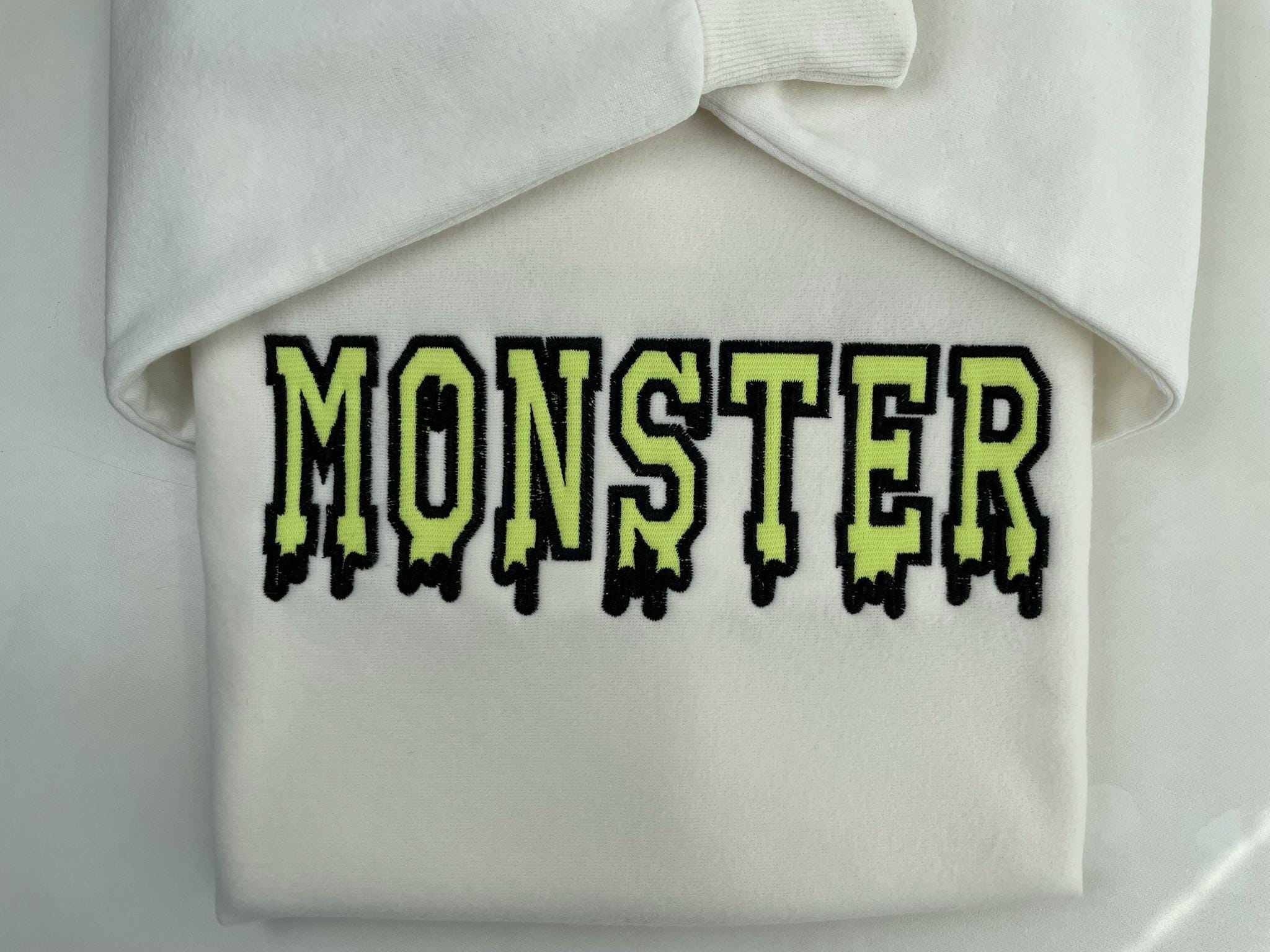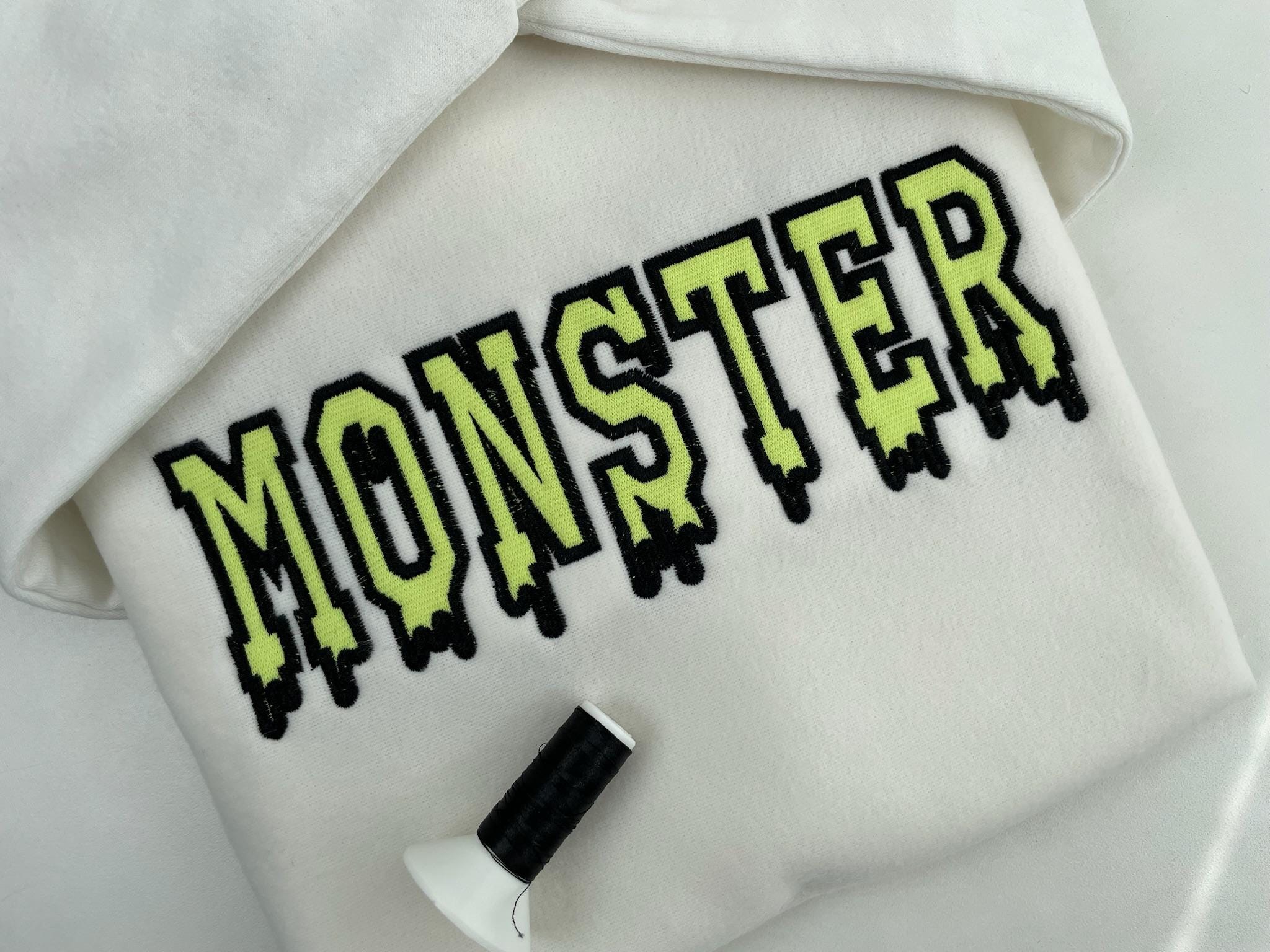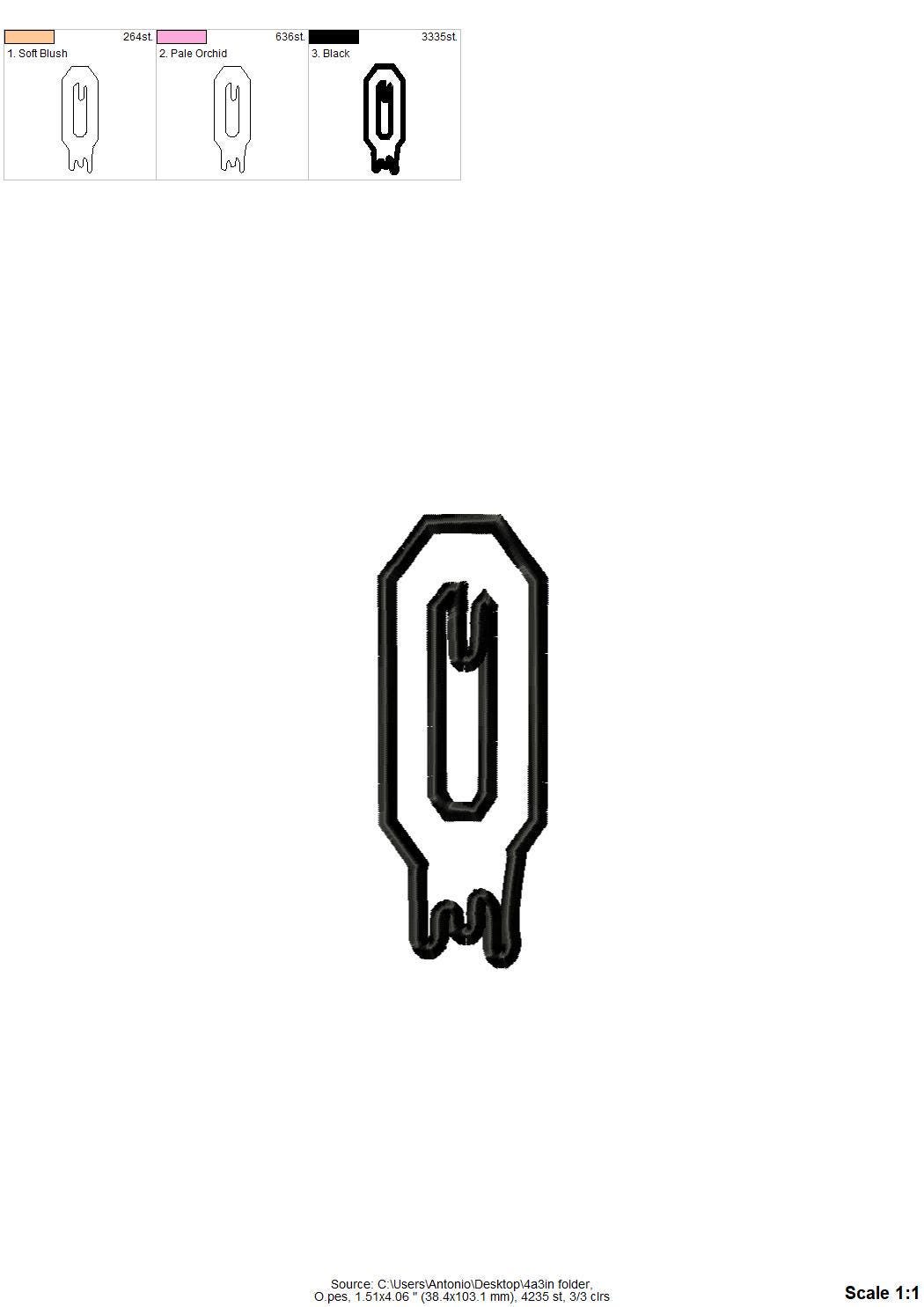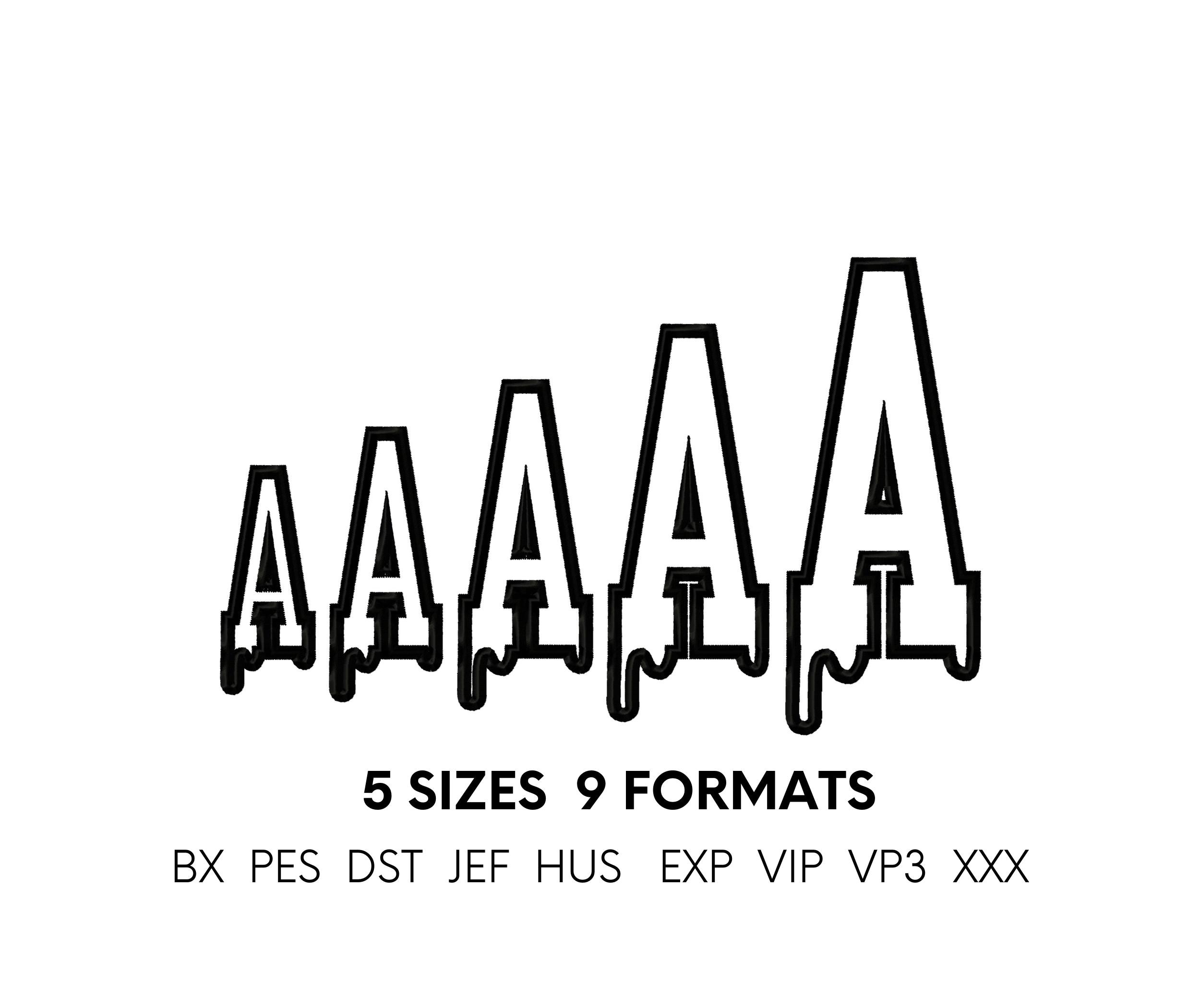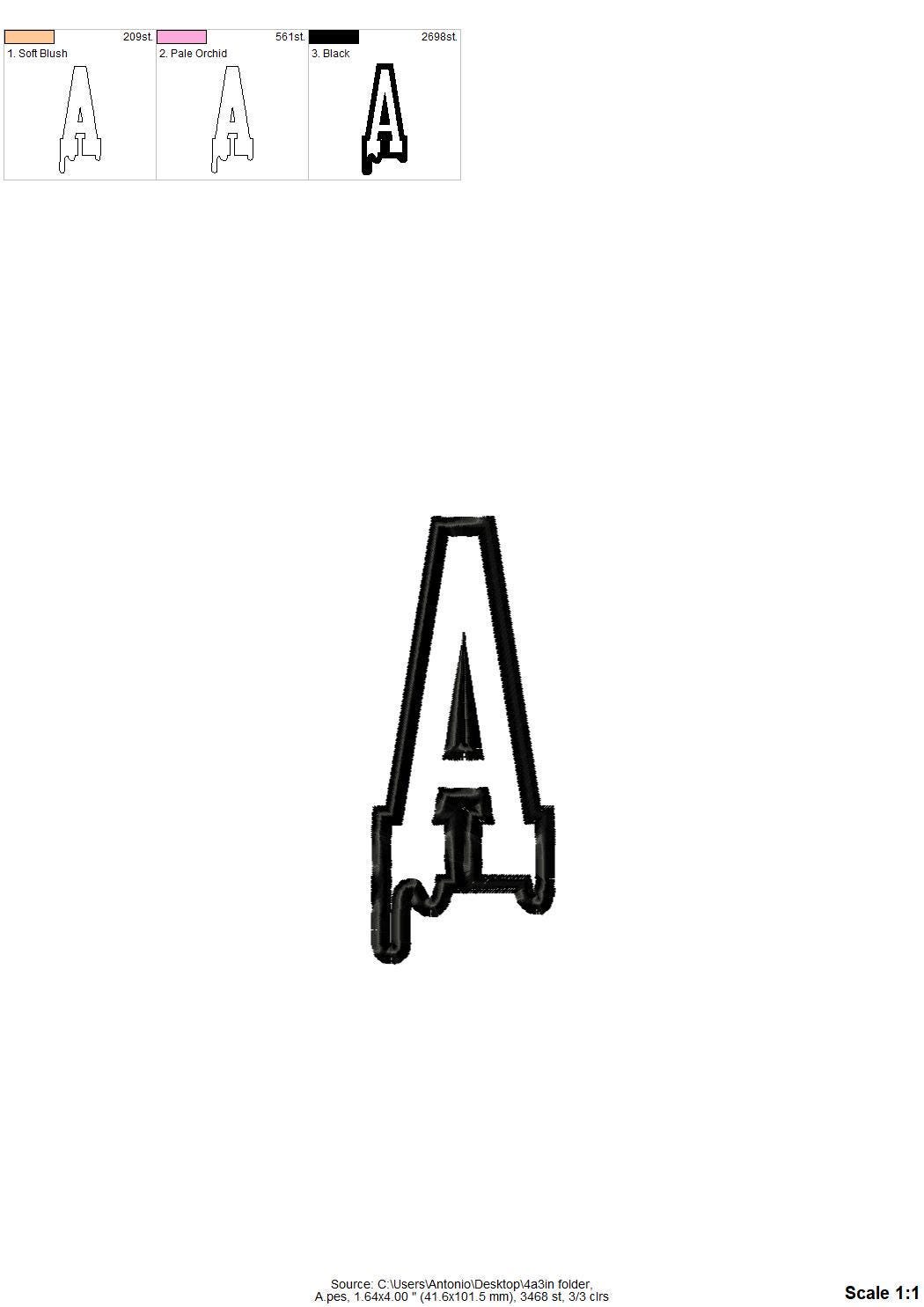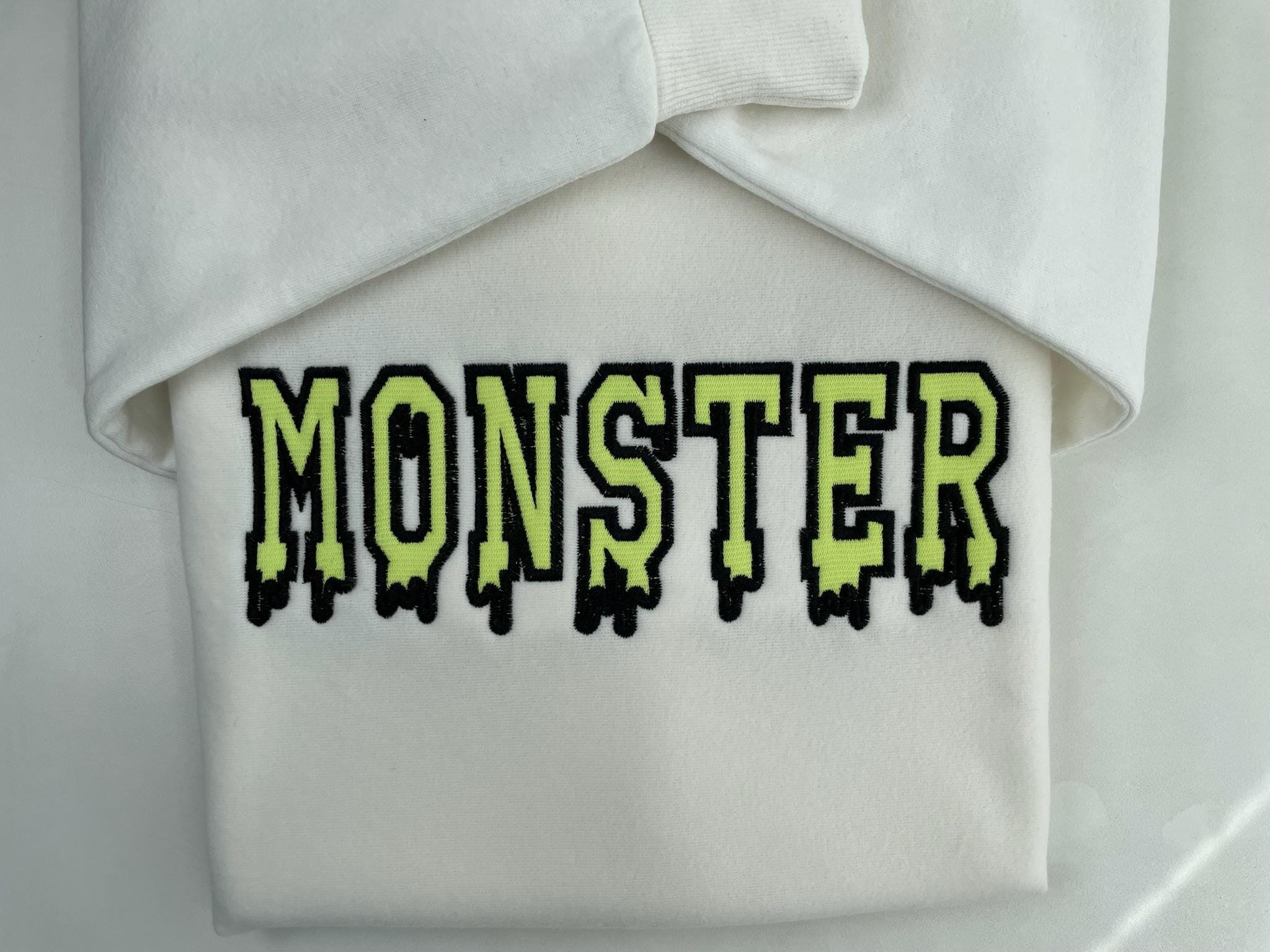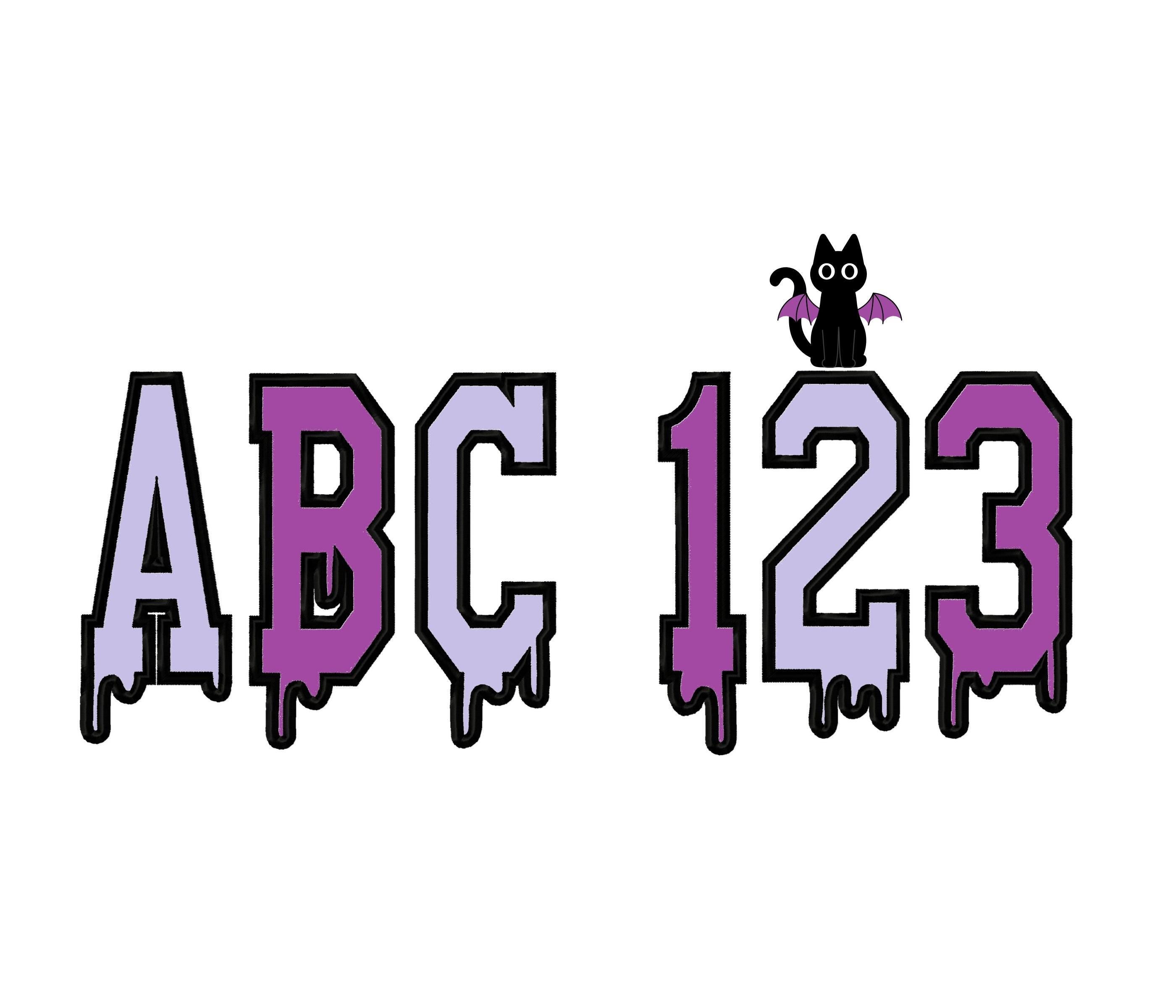
Halloween Spooky Melted FONT Applique Varsity Collegiate Melting Dripping Alphabet Monogram machine embroidery designs sizes 3 up to 6 inch
Applique design
Entire alphabet capital letters A-Z, and numbers 0-9.